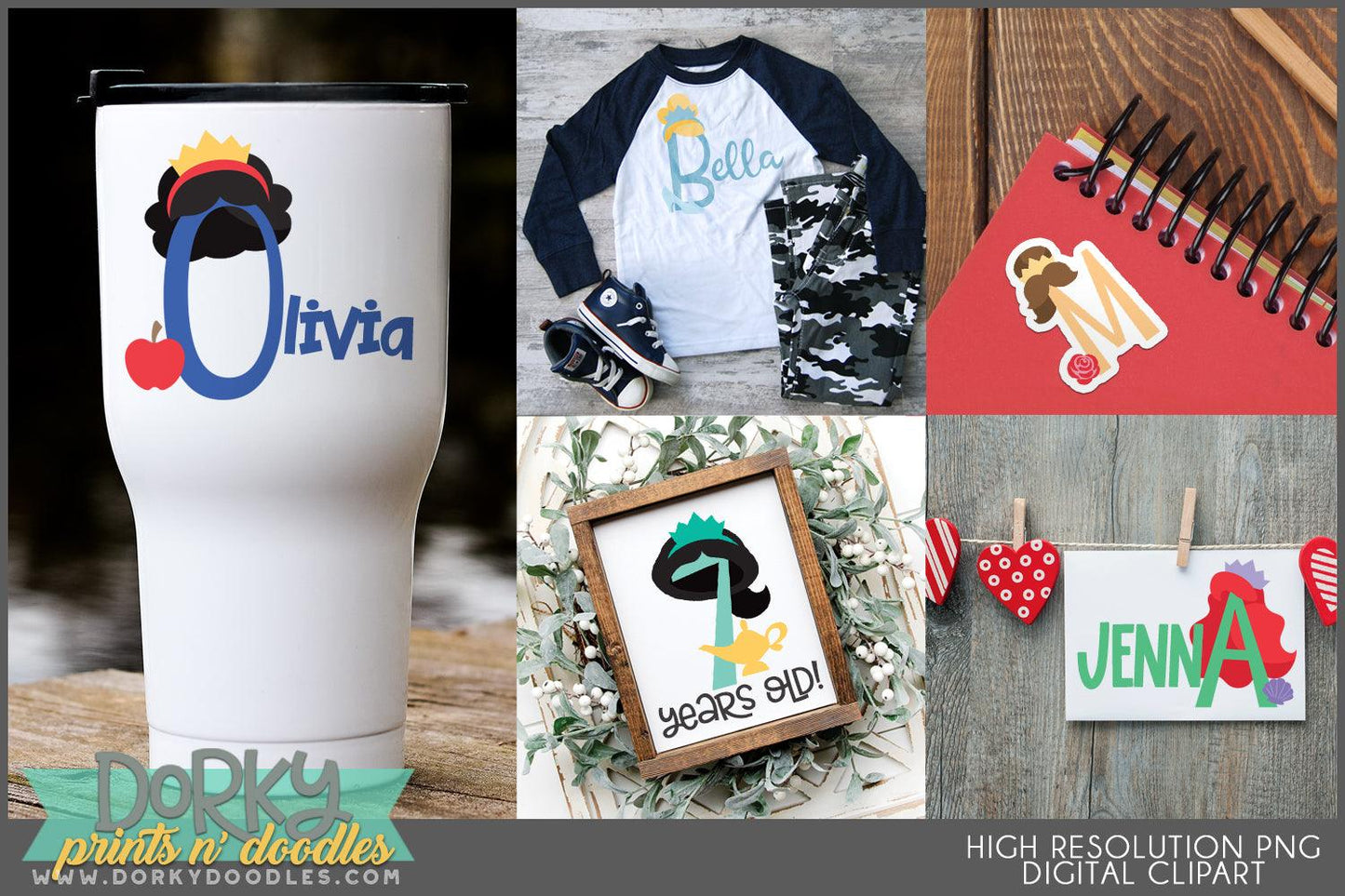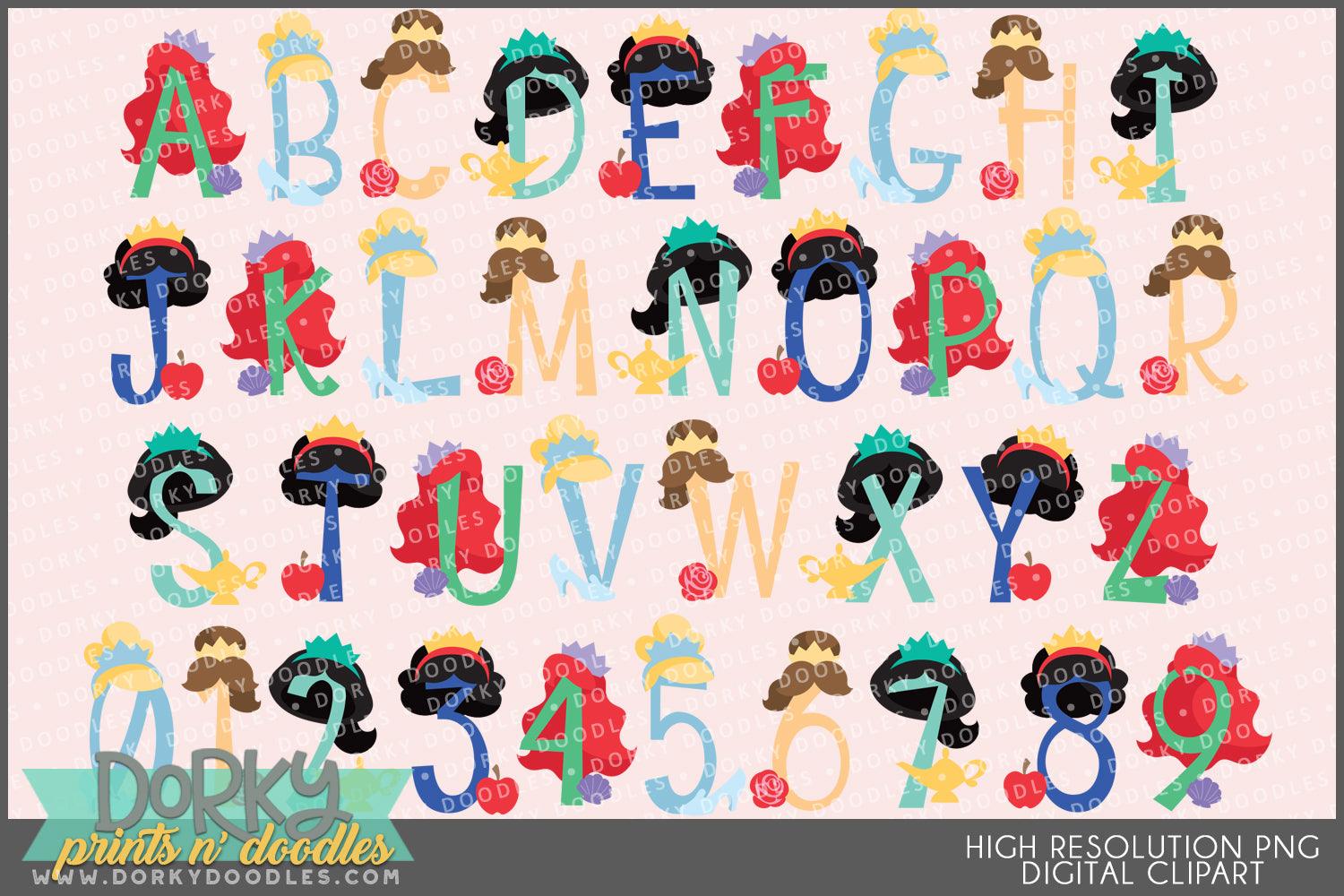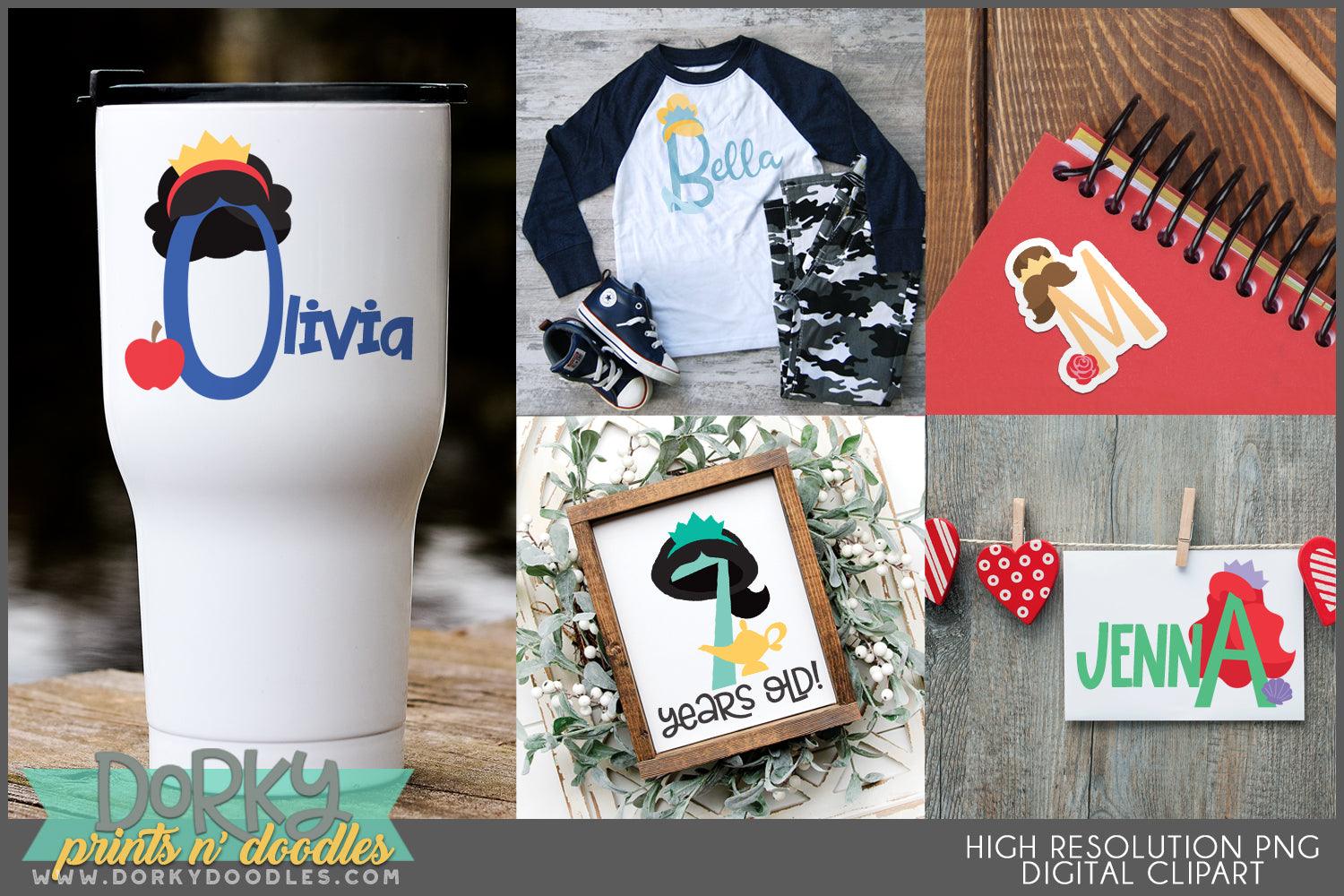
Princess Hair Alphabet Clipart
These cute princess alphabet and number clipart images look fabulous on cards, in scrapbooks, party invitations, planner stickers, sublimation projects, and decor! You will get 36 Digital Clip Art images in high resolution PNG format (they come as a ZIP file that you can download instantly once payment has cleared).
• the full alphabet and numbers 0-9 using hair and accessories from popular princesses